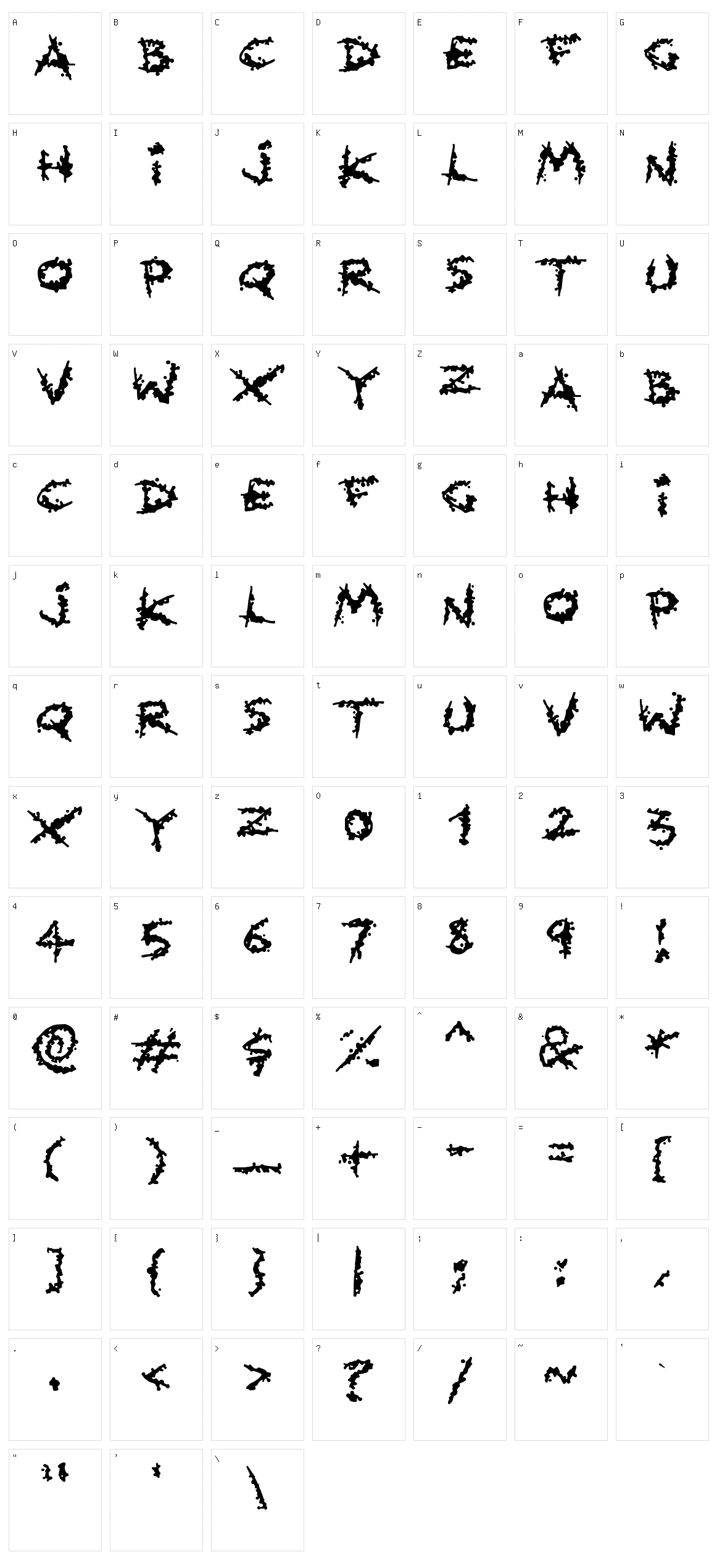
The free font Splatlings is carefully designed by Hawtpixel, showcasing a thoughtful balance of creativity and usability and falls under the Trash font style. When you download the ZIP file, it contains only 200.29 KB of font files, making it lightweight and quick to download. Please review the license details below to understand permitted usage and distribution rights. If license information is not available, we recommend using this font for personal projects only or contacting the author directly for commercial usage permissions.